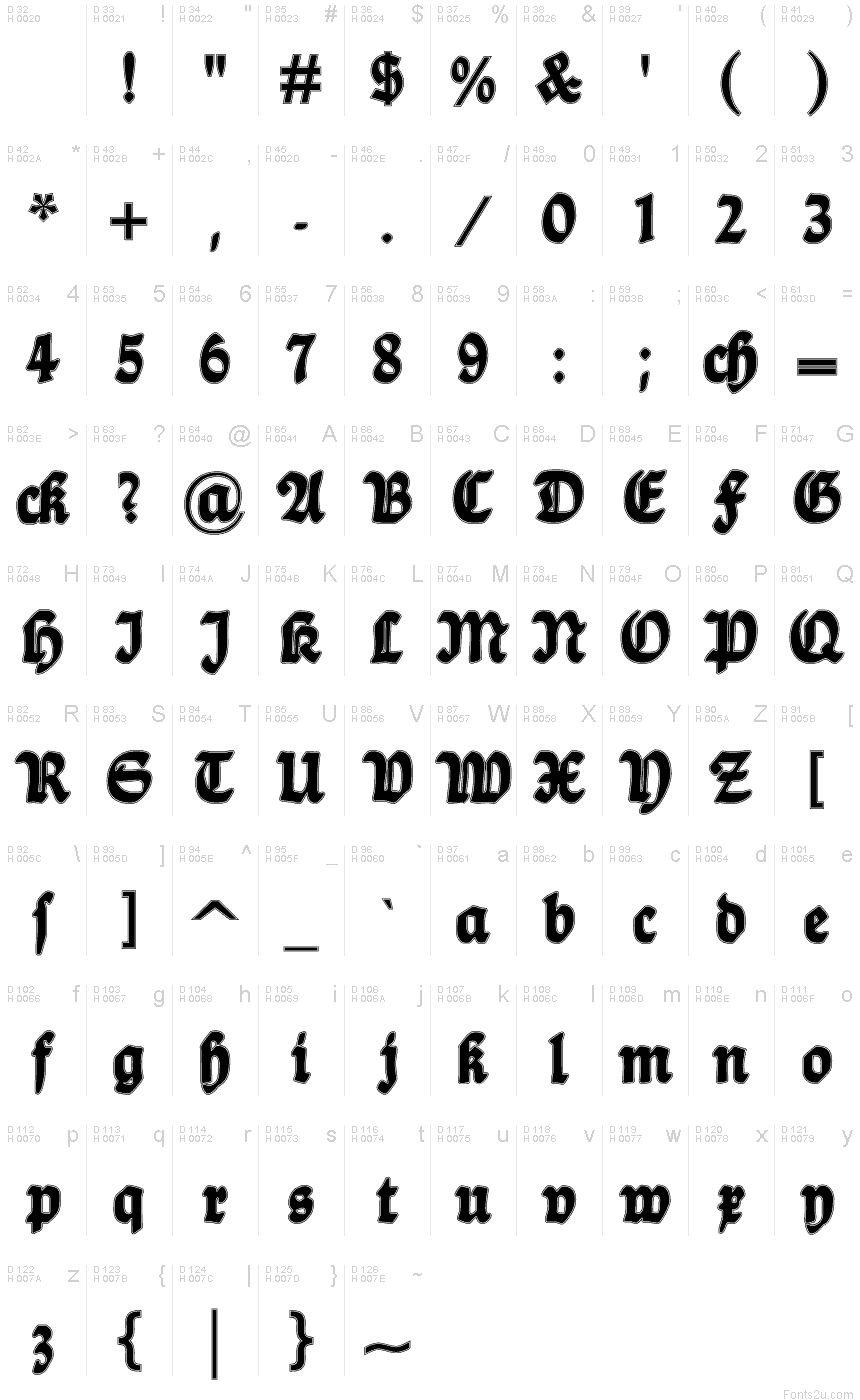
Ballade Contour
Ballade is a captivating gothic font that transports viewers to a medieval era. Its bold, ornate letterforms exude a sense of grandeur and historical significance. The intricate, contoured design lends an air of sophistication and elegance, making Ballade an excellent choice for formal documents, book covers, and high-end branding.
The font's distinctive visual style would lend itself well to various applications, from signage and packaging to editorial layouts and event materials. Its strong, distinctive presence ensures it commands attention and creates an impactful impression, making it a versatile option for designers seeking to evoke a sense of timeless tradition and refined aesthetics.
Halbfette Ballade geschaffen von Paul Renner, 1937. Digitized and hinted by Dieter Steffmann, Kreuztal